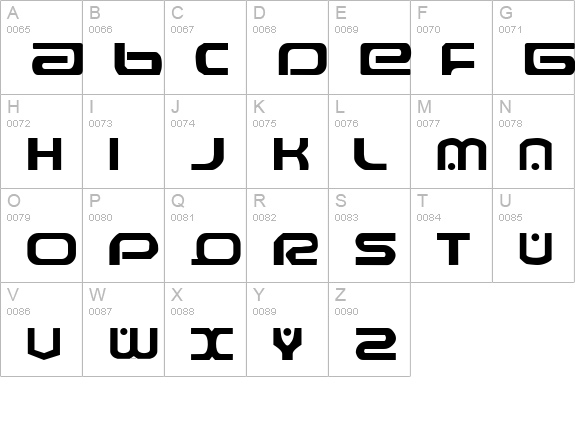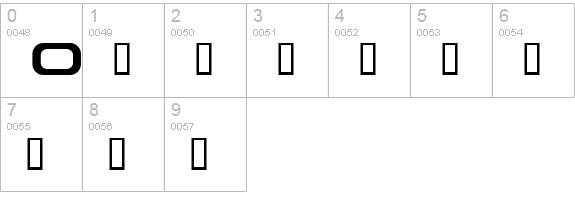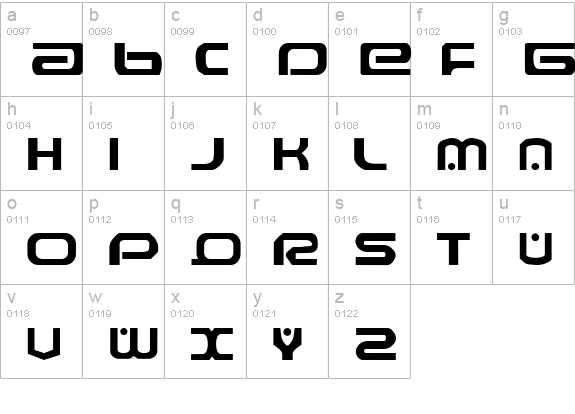
Raveflire Font Details
Introducing Raveflire font, a captivating and dynamic typeface that will bring your designs to life! With its energetic and explosive letterforms, Raveflire is the perfect choice for projects that demand attention and convey a sense of excitement. This font exudes a mesmerizing aura, as if each character is dancing to the beat of its own rhythm. The sharp edges and bold strokes give it a modern and edgy feel, making it ideal for music festival posters, club flyers, or any design that aims to capture the spirit of a wild and electrifying event. But what sets Raveflire font apart is not just its striking appearance, but also its accessibility. We believe that creativity knows no bounds, and that's why we made Raveflire freely available for everyone to enjoy. You can download this captivating font at FontsMarket.com, where a world of typographic possibilities awaits you. Whether you're a graphic designer looking to add a touch of adrenaline to your creations, or an event organizer in search of a font that screams "party," Raveflire font is here to set the stage on fire. Its versatility allows it to shine in a wide range of applications, from branding and advertising to social media graphics and more. So, let your imagination run wild and let Raveflire font unleash its electrifying energy in your designs. Download it for free at FontsMarket.com and get ready to make a bold statement that will leave a lasting impression.